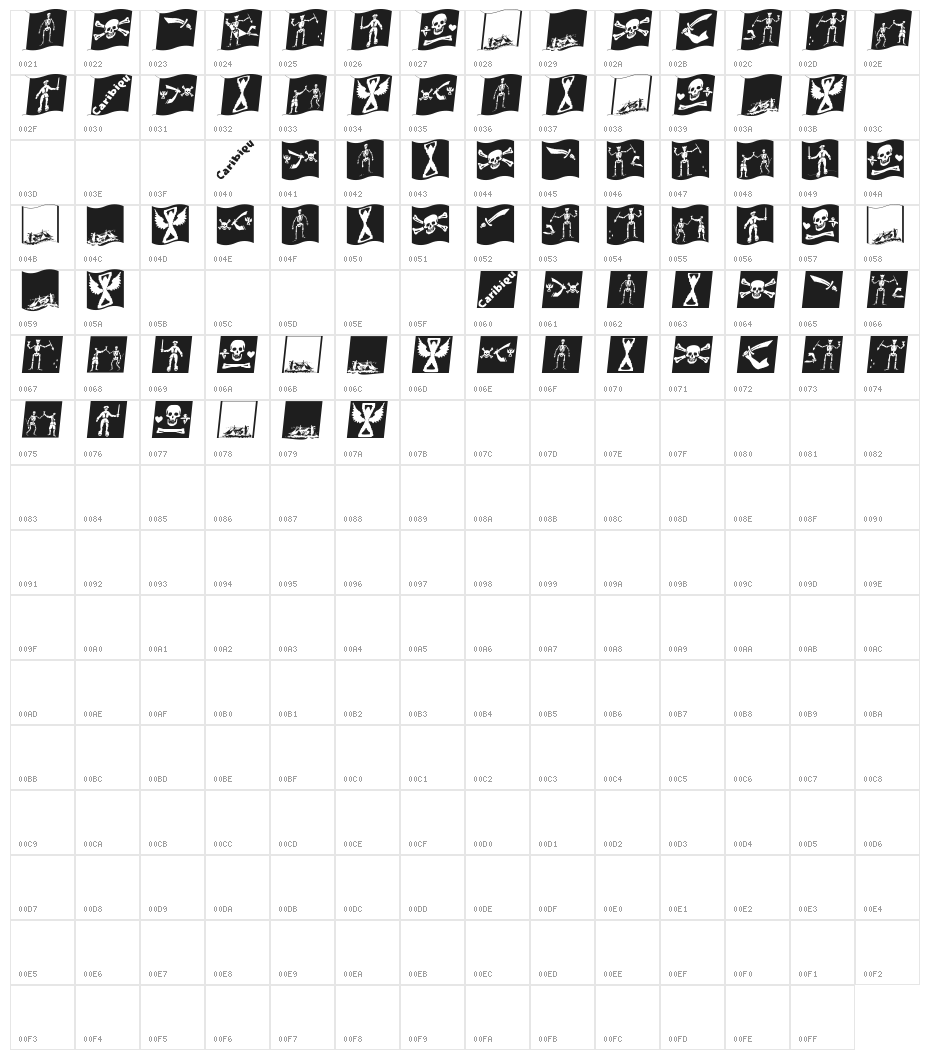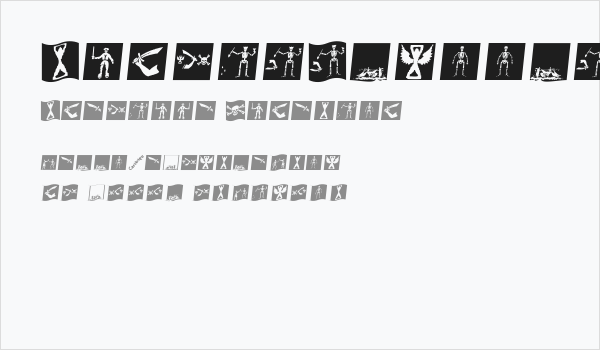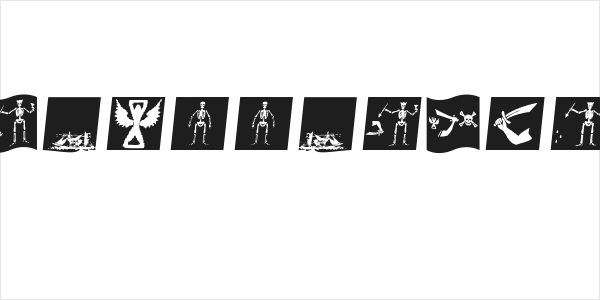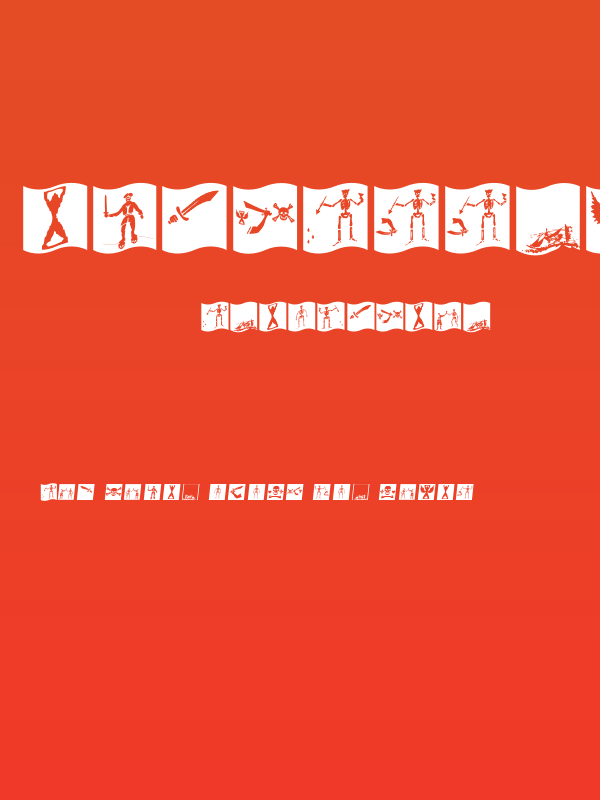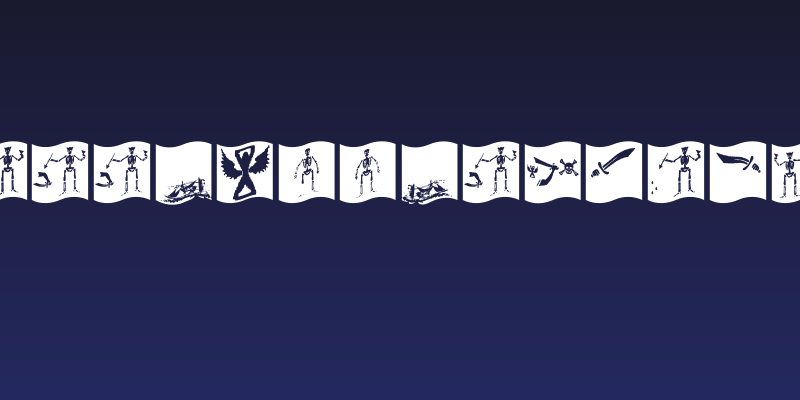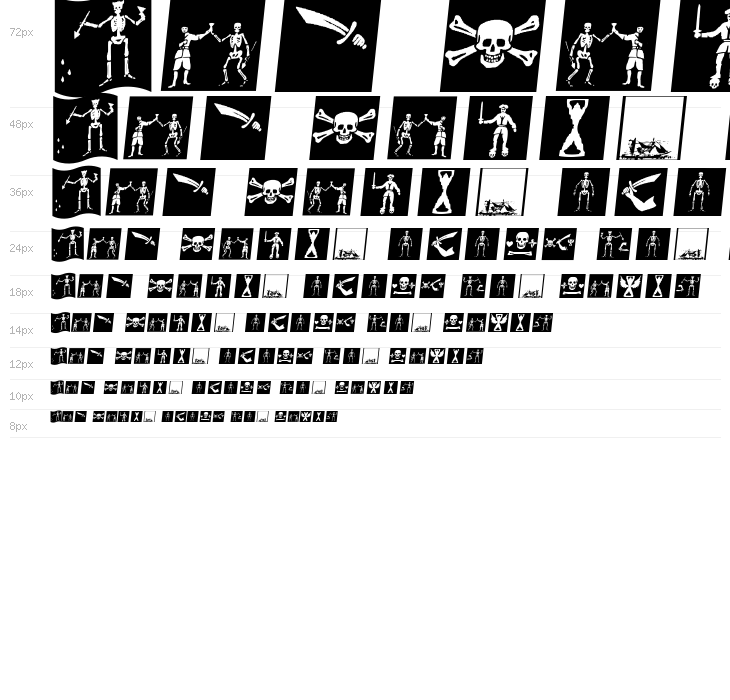
PiratsSymbolsArtefacts Font
PiratsSymbolsArtefacts Description
A decorative display font featuring pirate-themed symbols and artifacts, such as skulls, crossbones, skeletons, swords, hourglasses, and treasure chests, all rendered in a bold, high-contrast, hand-drawn style on waving flag backgrounds.
| Overall Style | Decorative, Thematic, Playful |
| Use Case | Logos, Posters, Themed Graphics, Educational Materials |
| Proposed Projects | Themed party invitations, escape room graphics, pirate event posters, educational materials, childrenΓ’β¬β’s books, and game assets. |